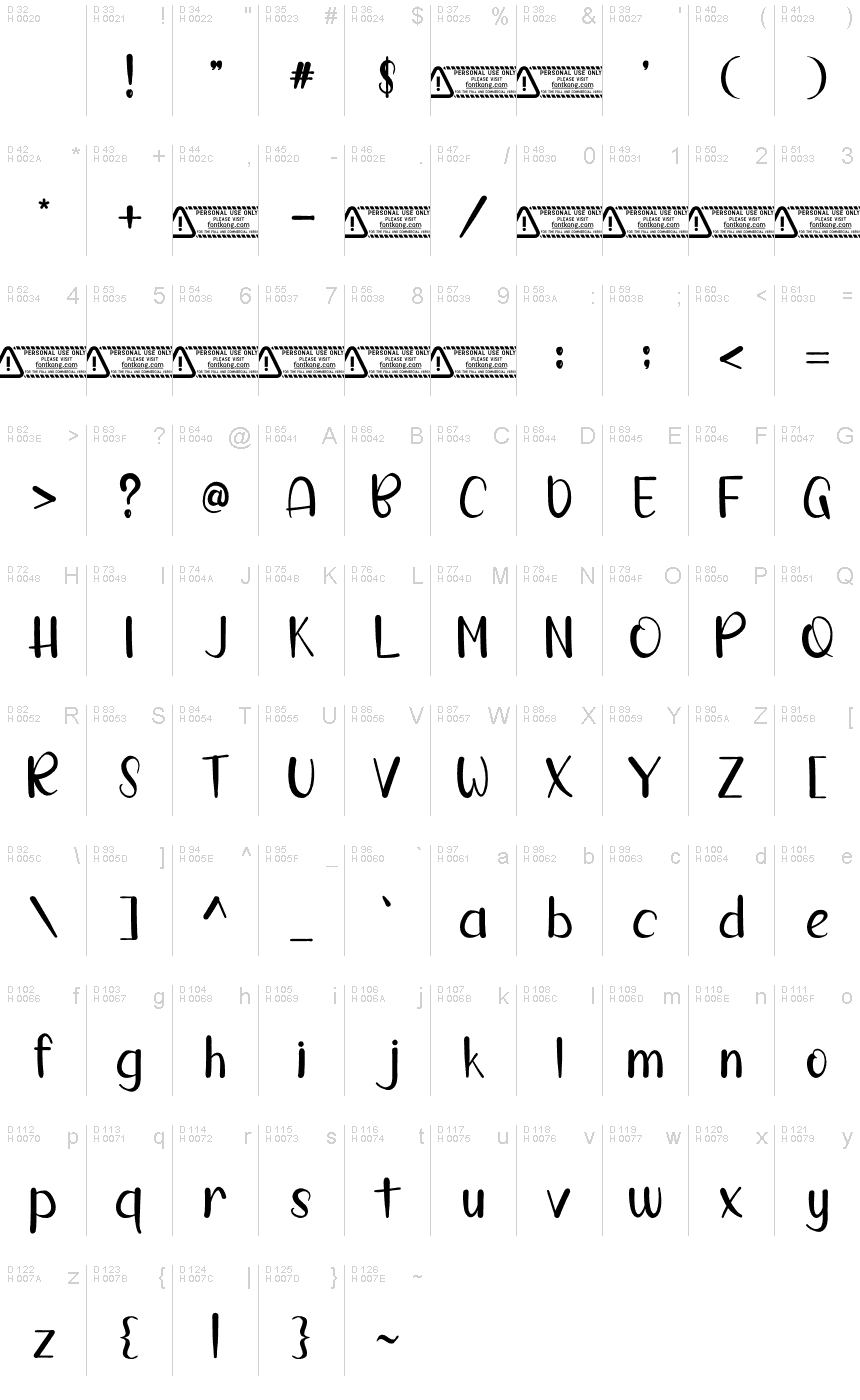
Anastasha
Anastasha, designed by Kong Font, captures the essence of personal touch in its semi-light handwritten style, bringing an authentic and approachable feel to any project. The font's organic curves and slightly varied line weights evoke a sense of casual elegance, making it a perfect choice for designs that require a human touch without sacrificing sophistication. Its aesthetic appeal lies in its fluidity and naturalness, as if each character were carefully crafted by hand.
The Anastasha font's versatility allows it to shine across various creative mediums—whether it's adding personality to branding materials, invitations, or giving editorial content an intimate feel. With this font in your toolkit, you can effortlessly convey warmth and individuality that resonates with audiences seeking that handmade impression.